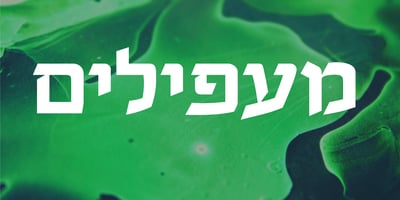
Agada MF Font Family was designed by Zvika Rosenberg and published by Masterfont. Agada MF contains 3 styles and family package options. A practical font family with 3 weights for all your needs: headlines, body text, signage etc. Great revival of legendary calligraphic script. High legibility at small sizes